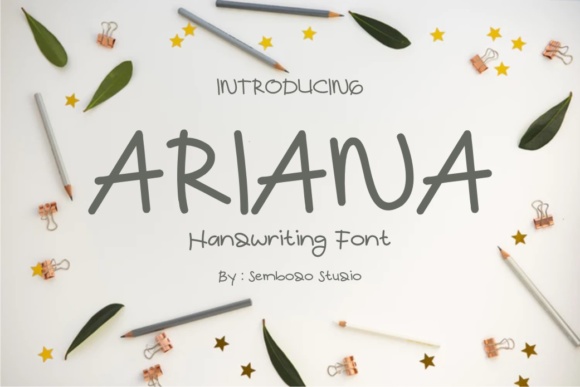
HomeScript FontsAriana Font Script Fonts Ariana Font FacebookXPinterestWhatsApp About Ariana Font The Ariana is a beautiful handwriting font, inspired by students writing at school in their notebook. DOWNLOAD ON CREATIVE FABRICAThis font is sold and delivered by Creative Fabrica. Font Canyon may earn a commission if you buy through this link. People also explored Servat Duclking Font Marlina Font Playbus Bays Font Kitchen Cooking Font Syawalan Font Journalis Font Bluehoume Font Office Mockup and Photos 329 0 TagsAriana Font Previous articleClaster FontNext articlePersonalitype Font LEAVE A REPLY Cancel reply Comment: Please enter your comment! Name:* Please enter your name here Email:* You have entered an incorrect email address! Please enter your email address here Website: Save my name, email, and website in this browser for the next time I comment. Personal Use Free Barbatrick Personal Use Free Read more about this font Hommy You Personal Use Free Read more about this font Rhetorical Personal Use Free Read more about this font Pasile Personal Use Free Read more about this font BLOG Transform Your Website: Elevate Your Typography with 7 Best Web Font Generators Are you ready to transform your website's typography from ordinary to extraordinary? Great! Today, we're diving into the world of web font generators, which... Free Fonts Risk: Why Free Fonts Can Be Dangerous for Designers Top 7 Google Fonts Alternatives for Faster and Privacy-Friendly Web Design (2025) Elegant Wedding Invitation Fonts – Handwritten & Script Fonts